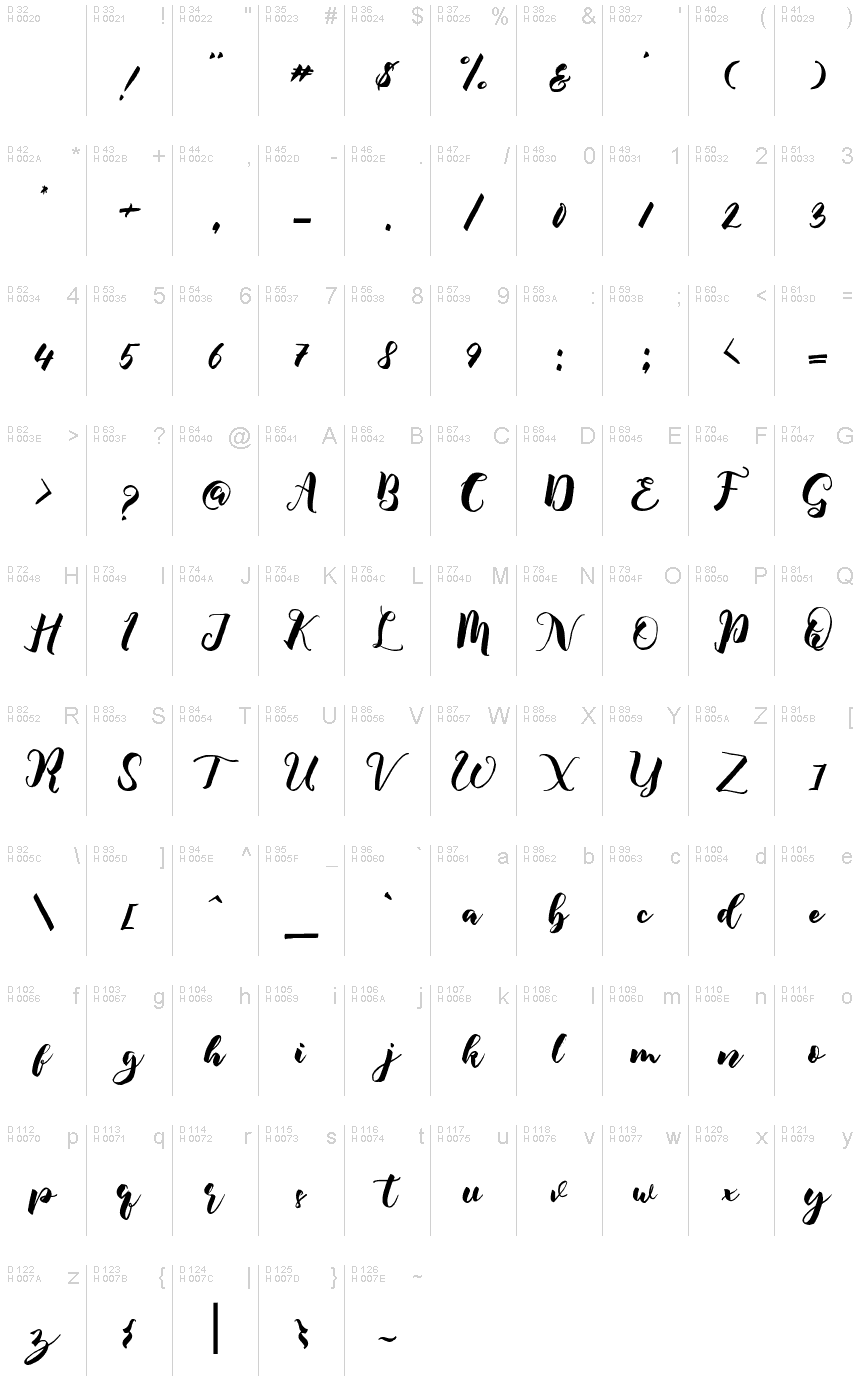
Romance 字体预览
Romance, the handwritten font designed by Infontree, is a versatile typeface that can add a touch of elegance to any project. Its curvy and playful strokes evoke the feeling of love and passion, making it perfect for wedding invitations, greeting cards, and love letters. The font's artistic flair also makes it suitable for branding projects that require a personal touch, such as fashion or beauty blogs. With its legibility and stylishness, Romance can be used in various design projects from social media graphics to book covers. Give your designs a romantic twist with this charming typeface!